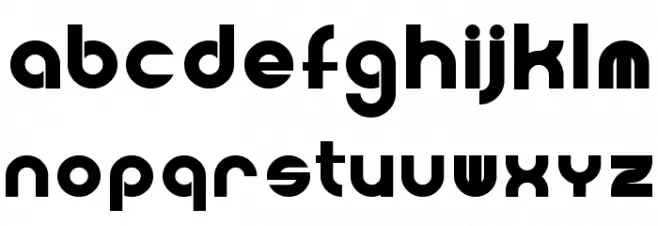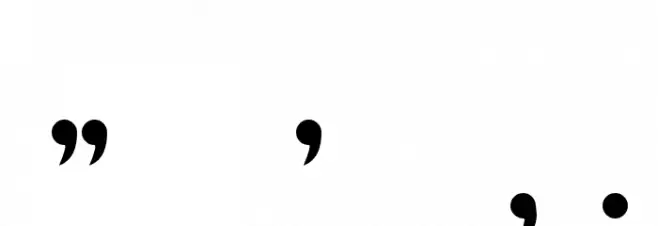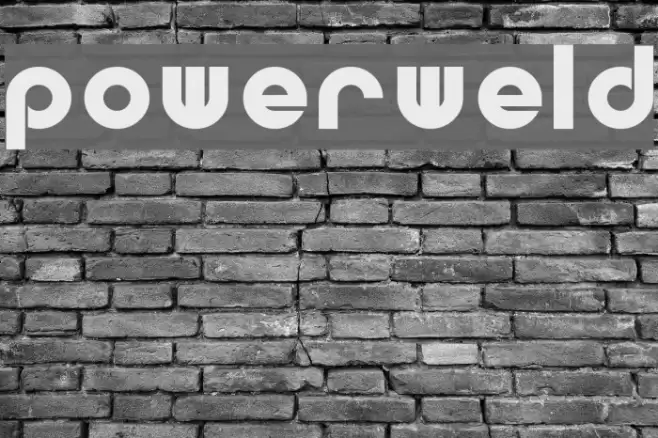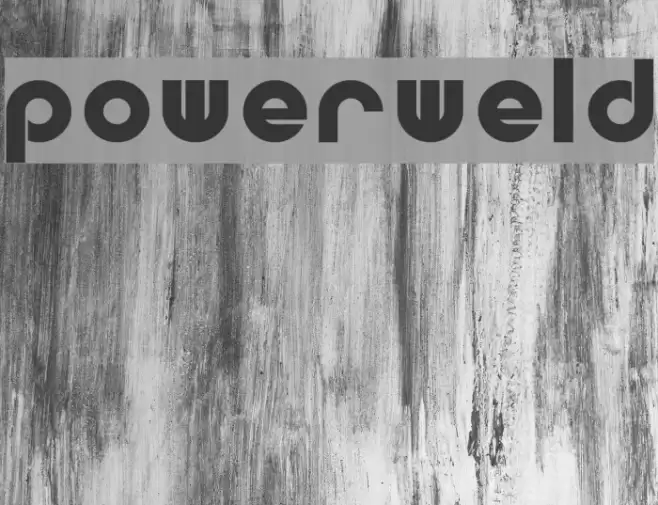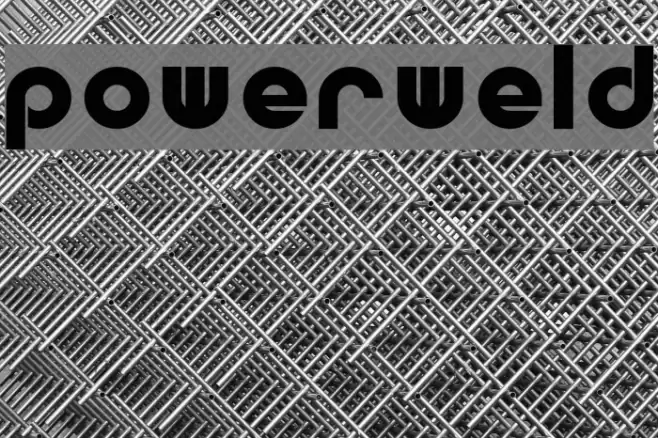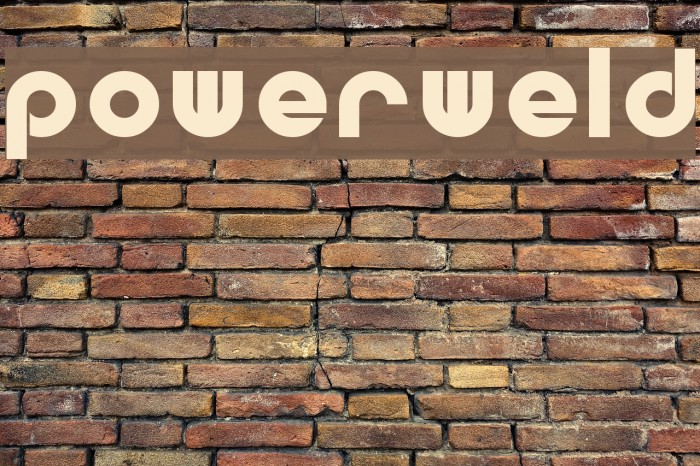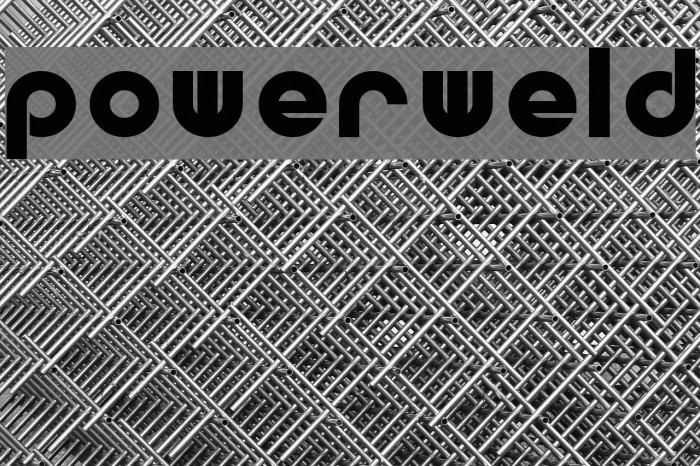
Powerweld
This font features a bold and geometric design with a modern flair. The characters are constructed with clean lines and rounded edges, giving it a futuristic and sleek appearance. The uniformity in the letterforms provides a cohesive look, making it suitable for various design applications. The lowercase letters exhibit a consistent height, and the overall style is minimalistic yet impactful. The font's unique characteristics make it stand out, particularly in digital and print media where a contemporary and bold statement is desired.
A bold, geometric font with a modern and sleek design.
- Proposed Projects: Ideal for branding, headlines, posters, and digital media where a strong and modern aesthetic is required.
- Use Case: Headlines, Logos, Posters